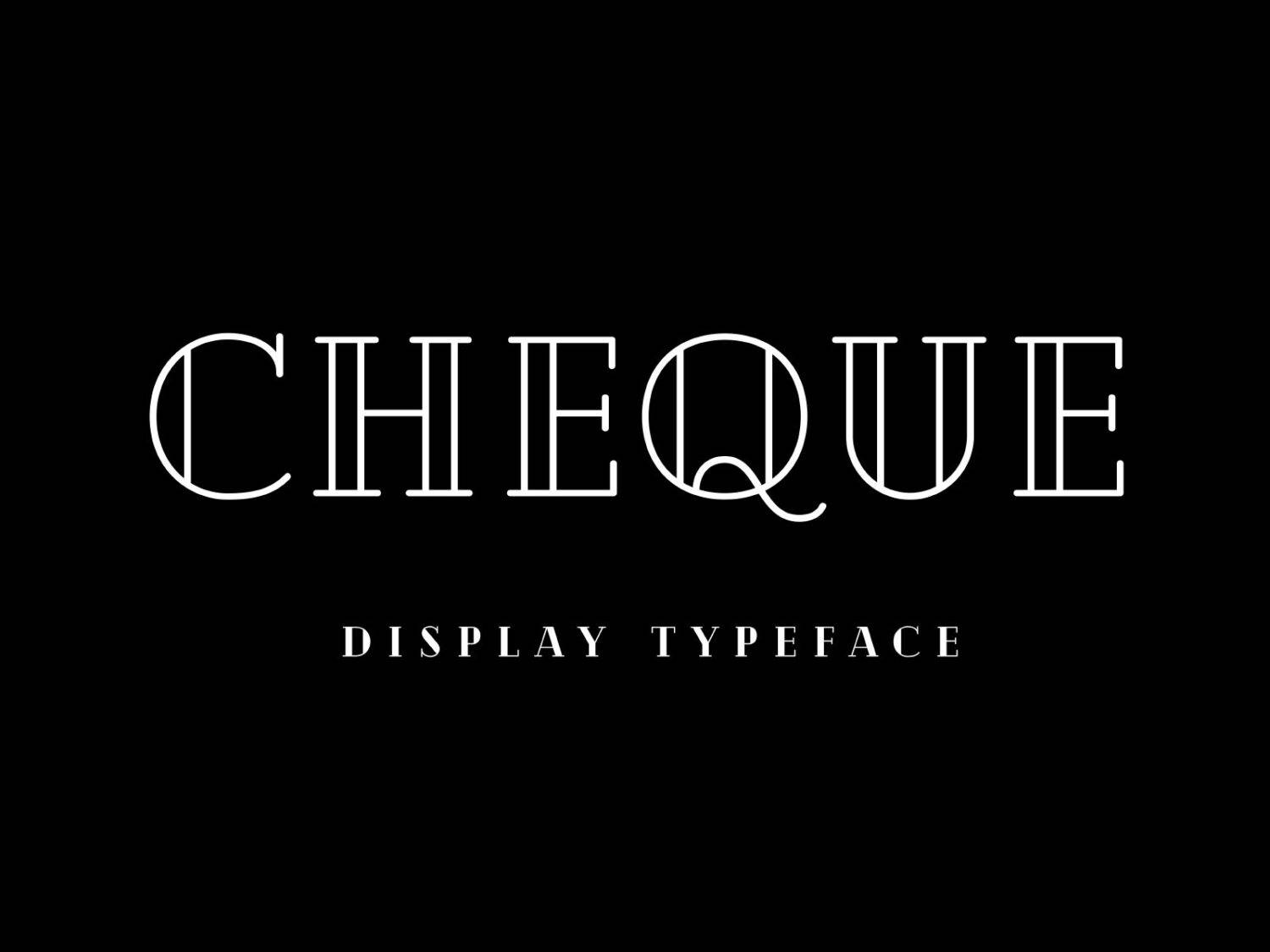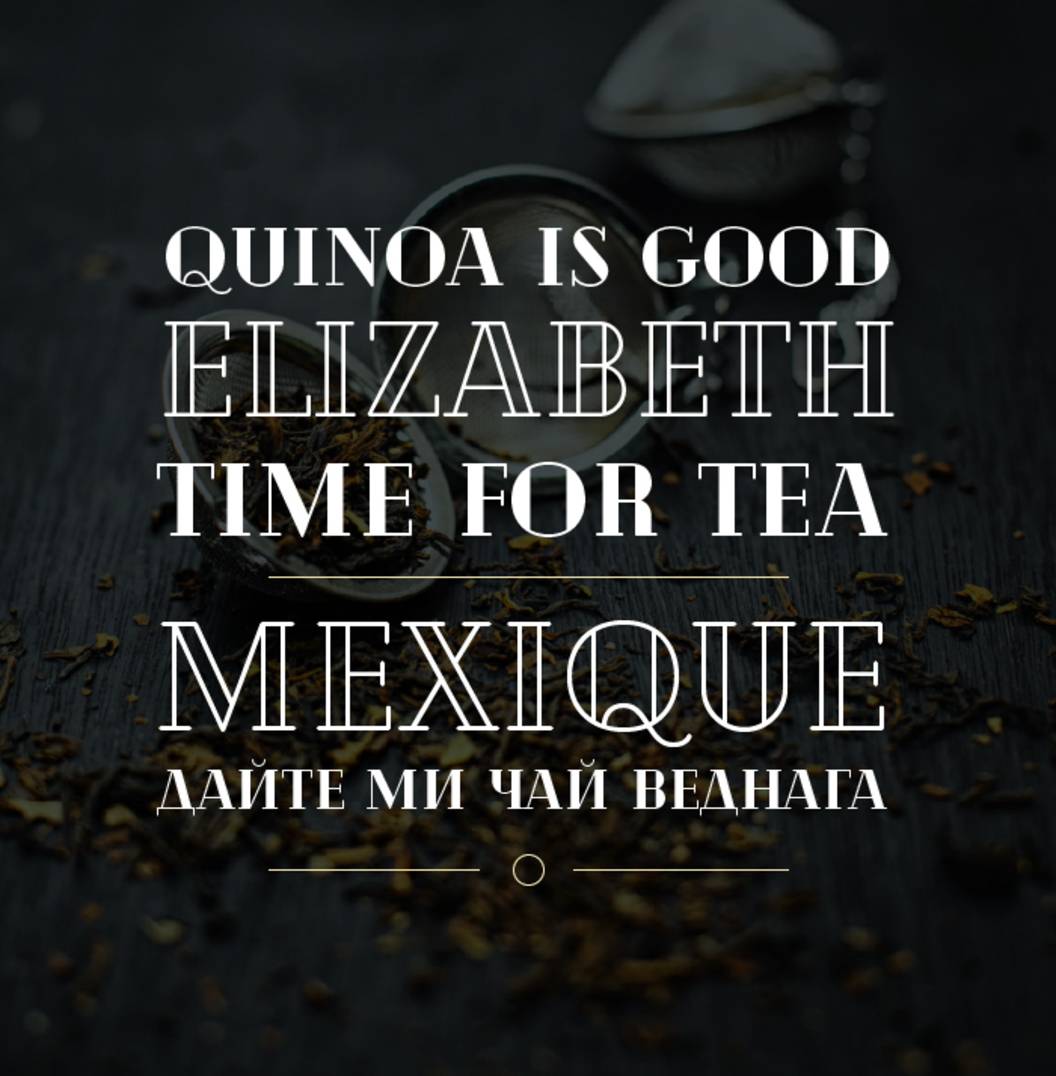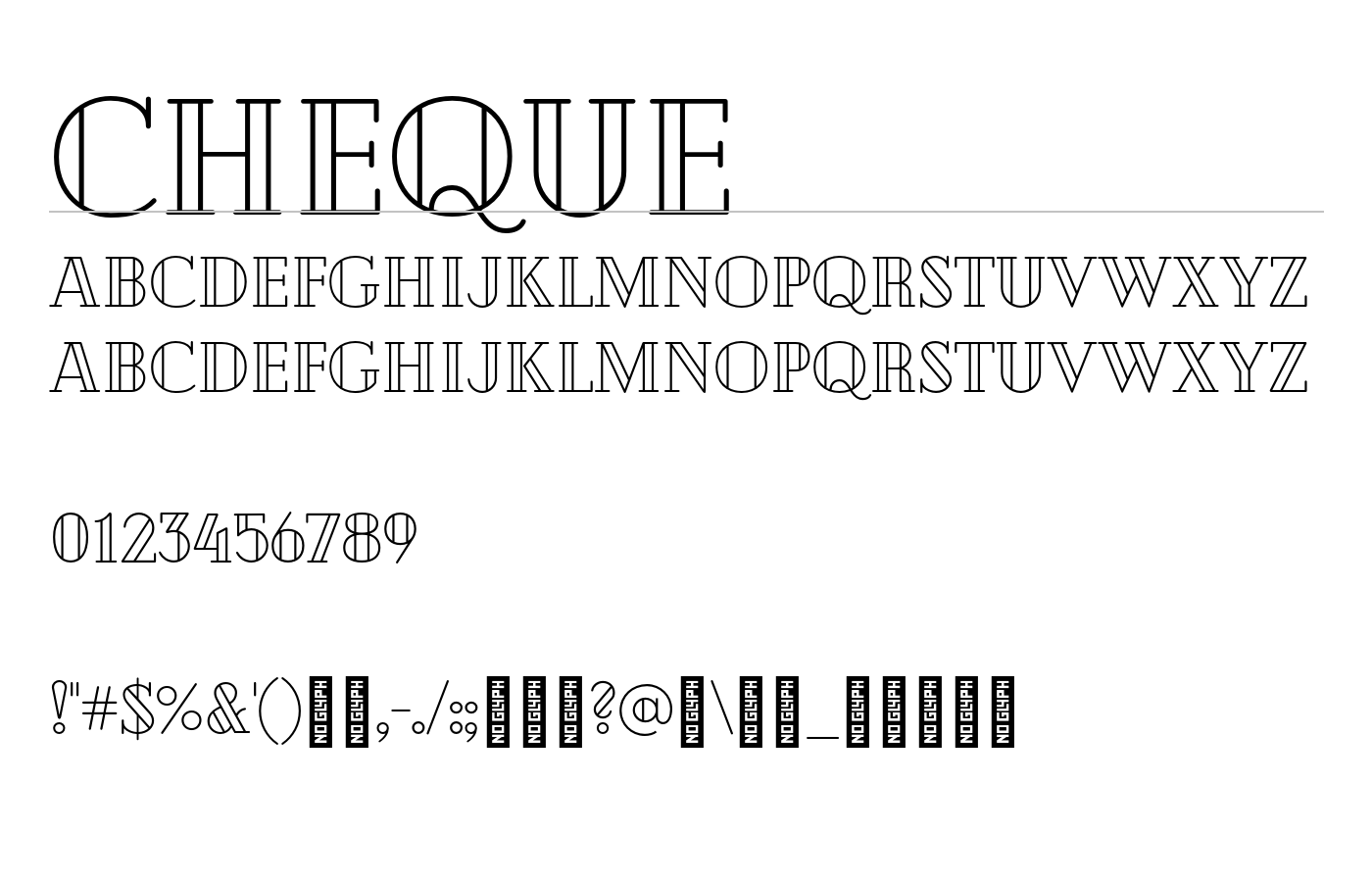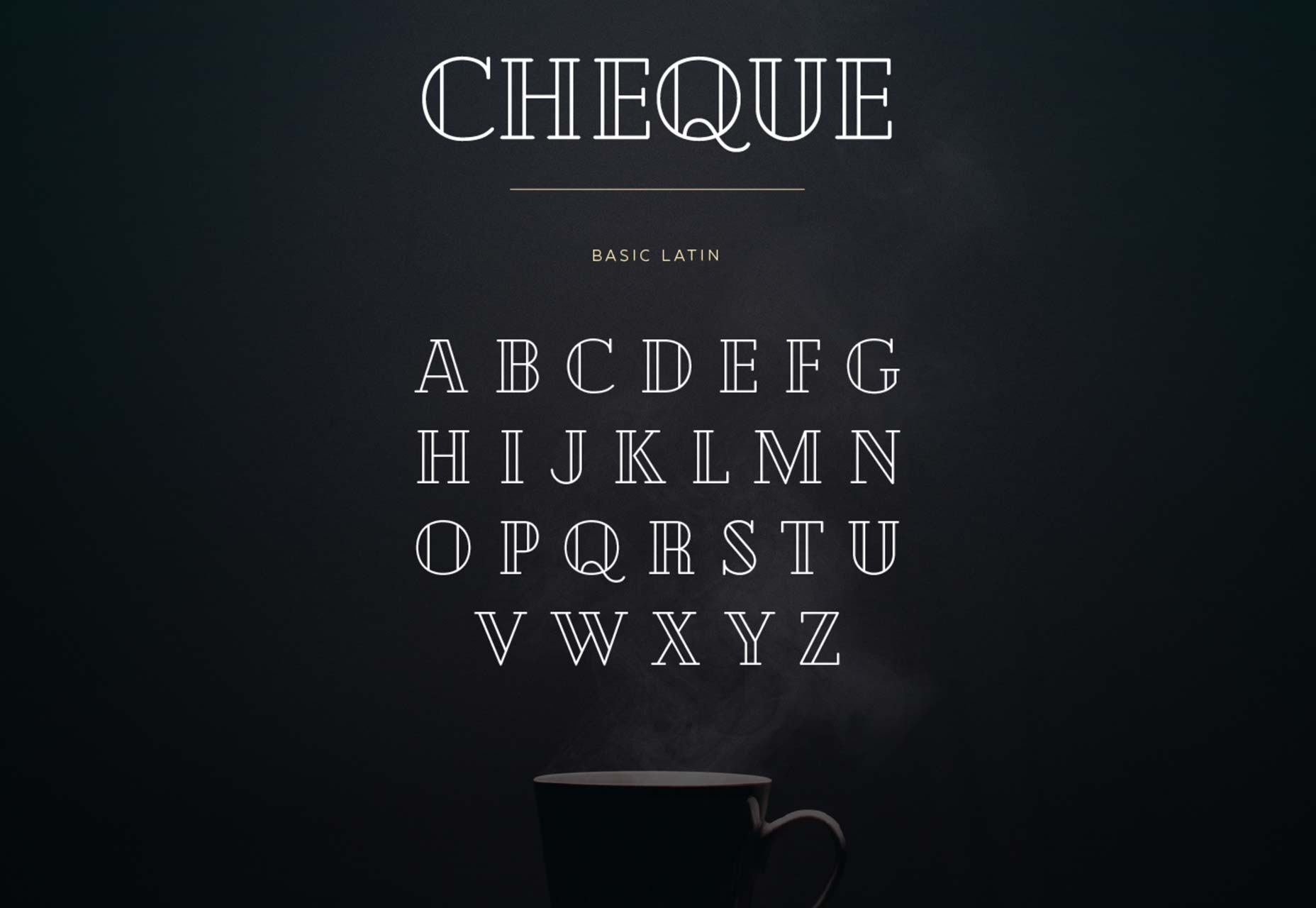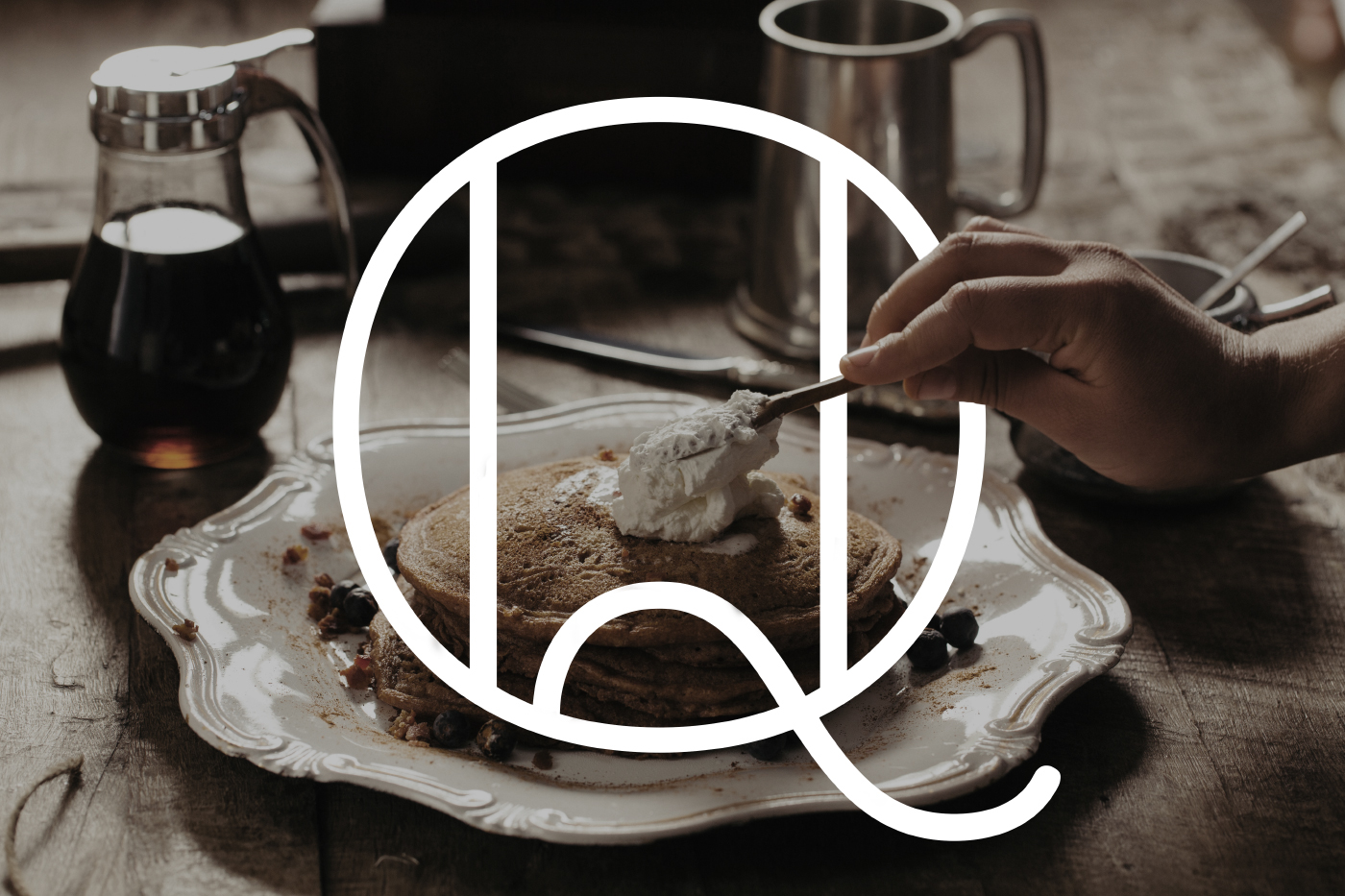
Cheque is a delicate, modern serif font featuring thin, elegant lines with high contrast between thick and thin strokes. Its refined letterforms, including sharp serifs and distinctive geometric shapes in characters like Q and O, give it a sophisticated and stylish feel, perfect for luxury branding, editorial headlines, and invitations where a touch of elegance is desired. The font’s narrow width and airy spacing enhance its sleek, upscale appearance, making it an excellent choice for projects that require a refined, contemporary serif look.
Cheque
About Cheque
| Font family | Cheque |